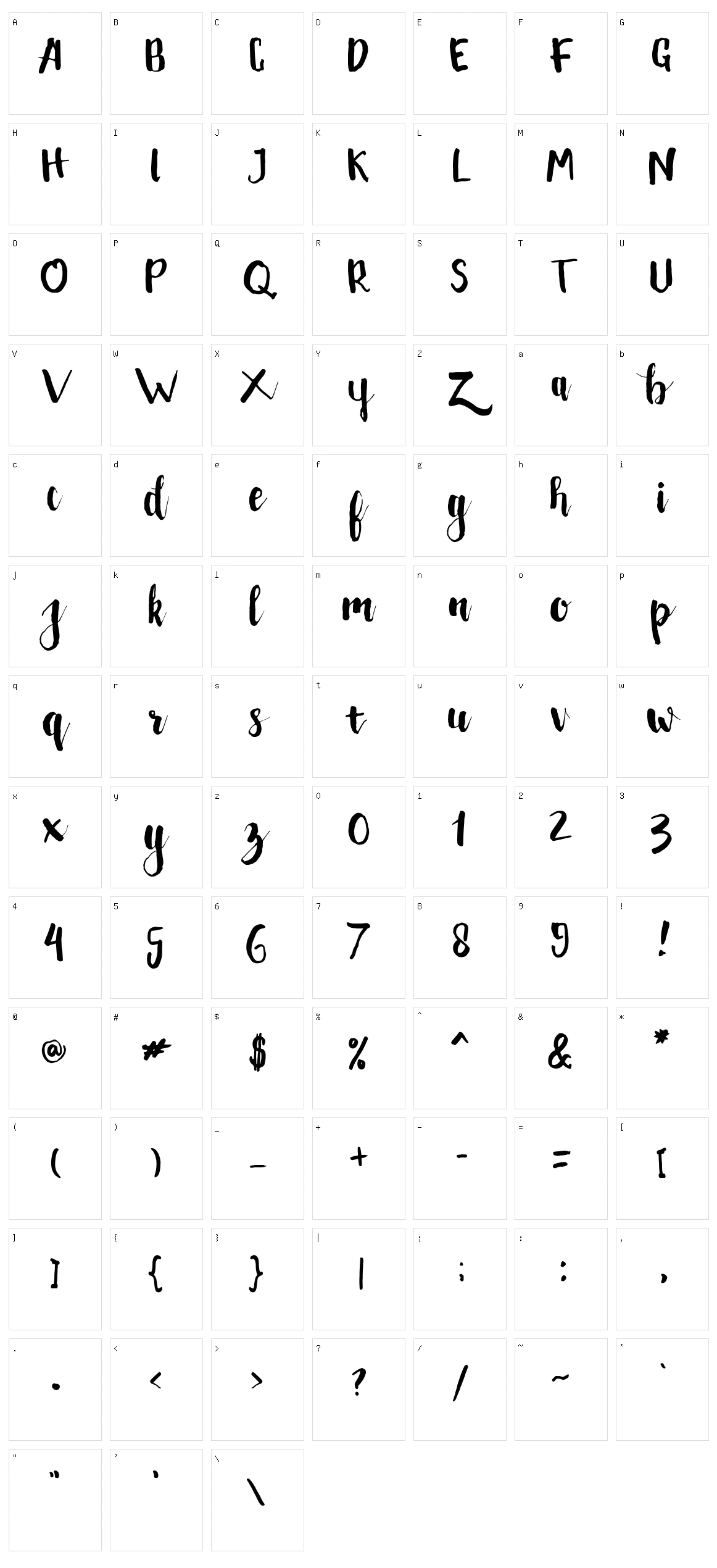
The free font Peudada is carefully designed by Masanis Studio, showcasing a thoughtful balance of creativity and usability and falls under the Script font style. When you download the ZIP file, it contains only 80.28 KB of font files, making it lightweight and quick to download. Please review the license details below to understand permitted usage and distribution rights. If license information is not available, we recommend using this font for personal projects only or contacting the author directly for commercial usage permissions.